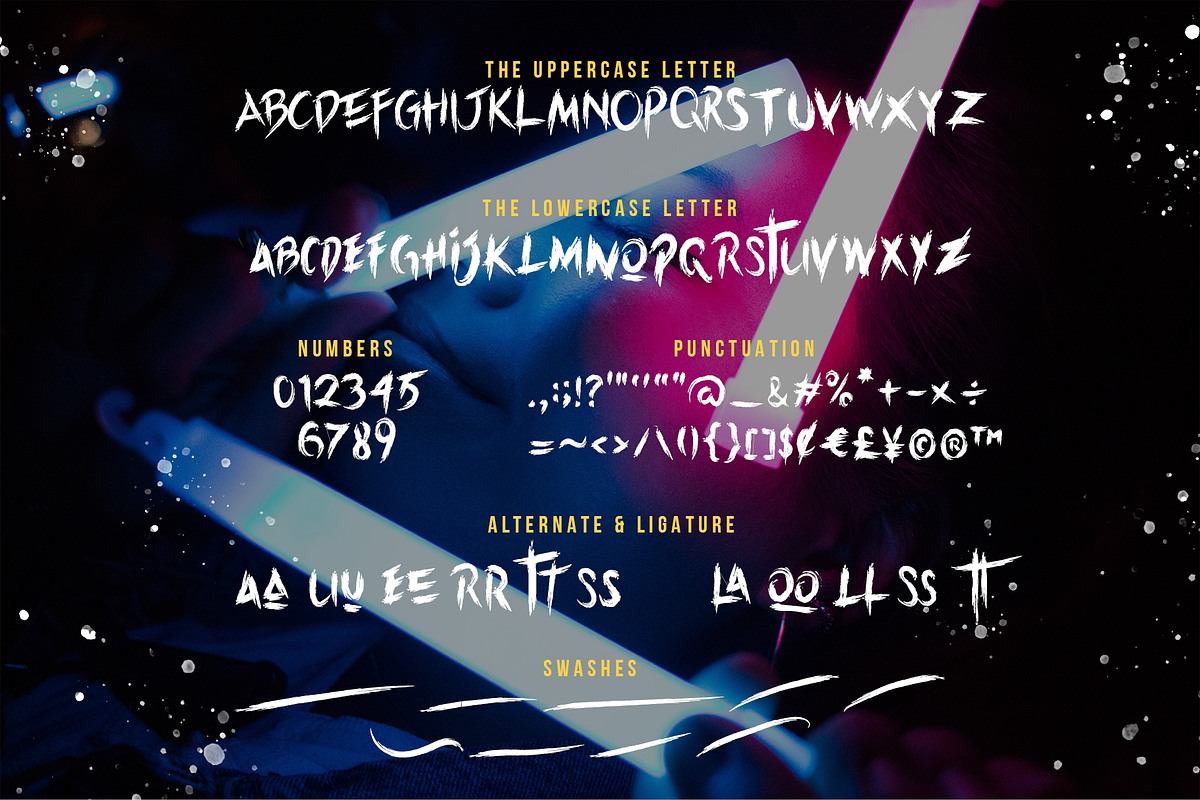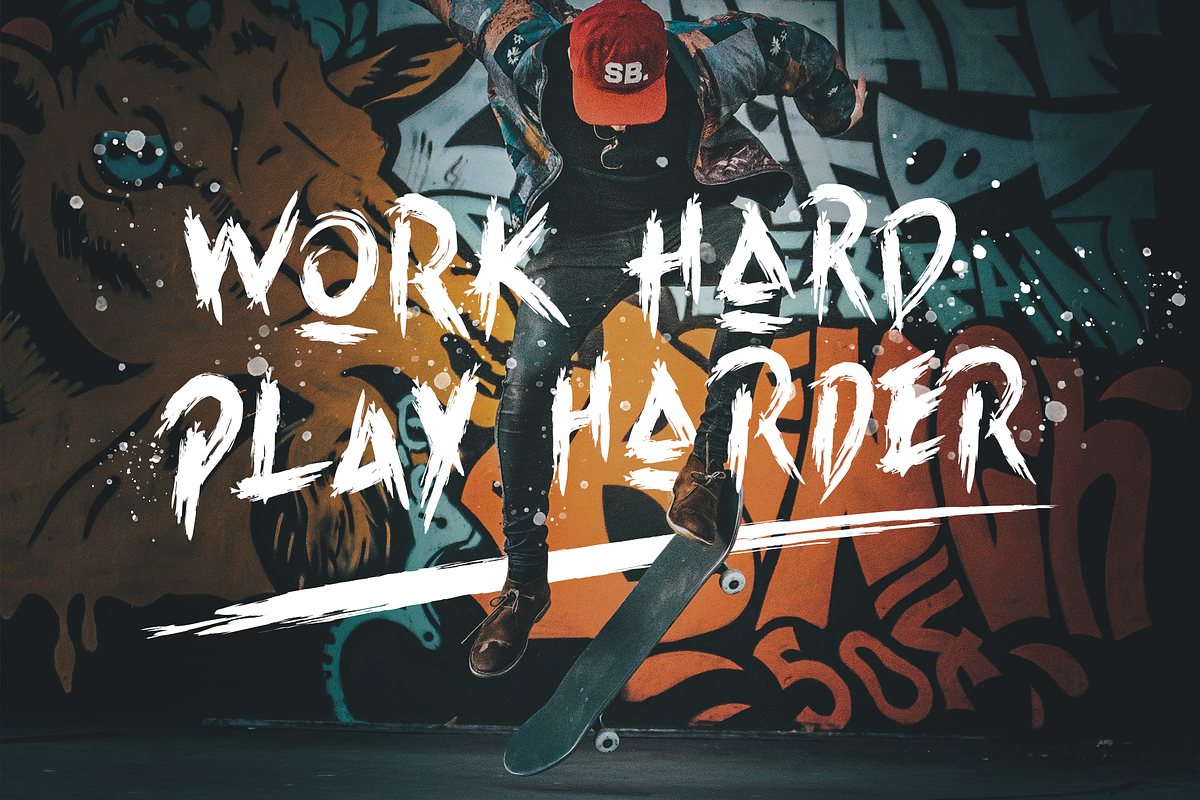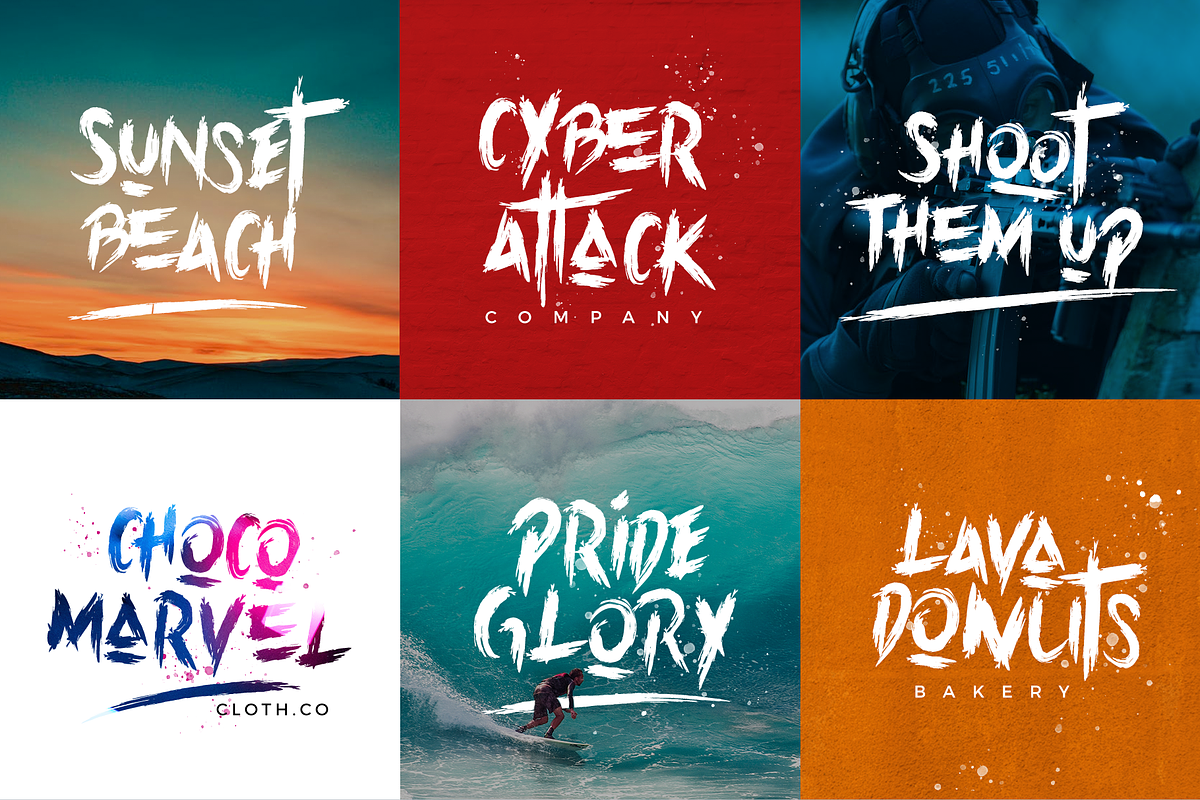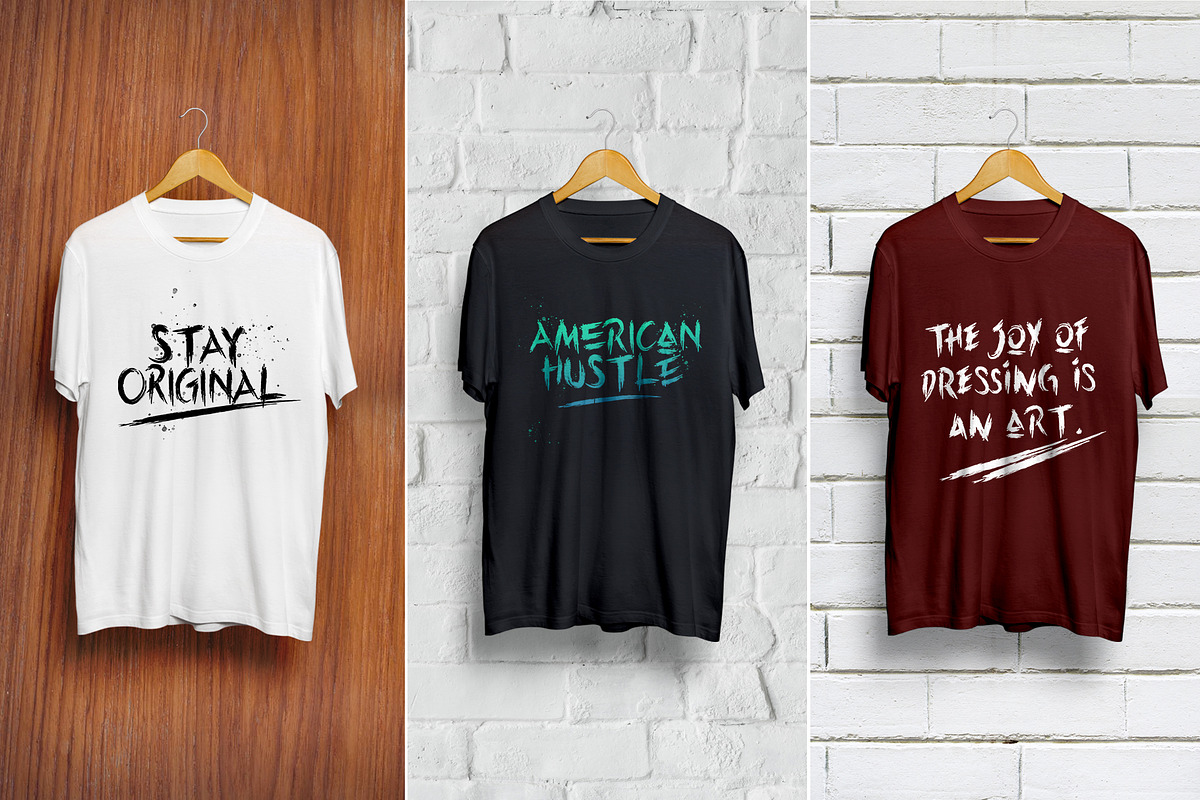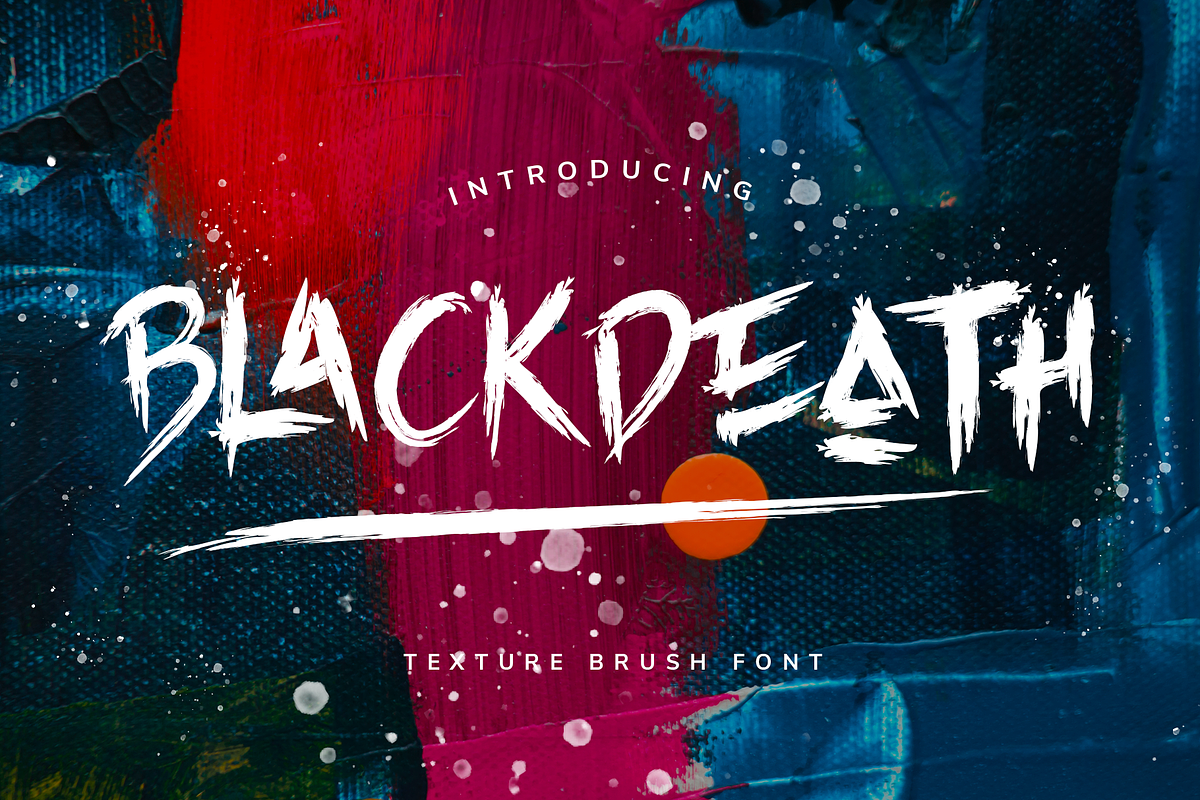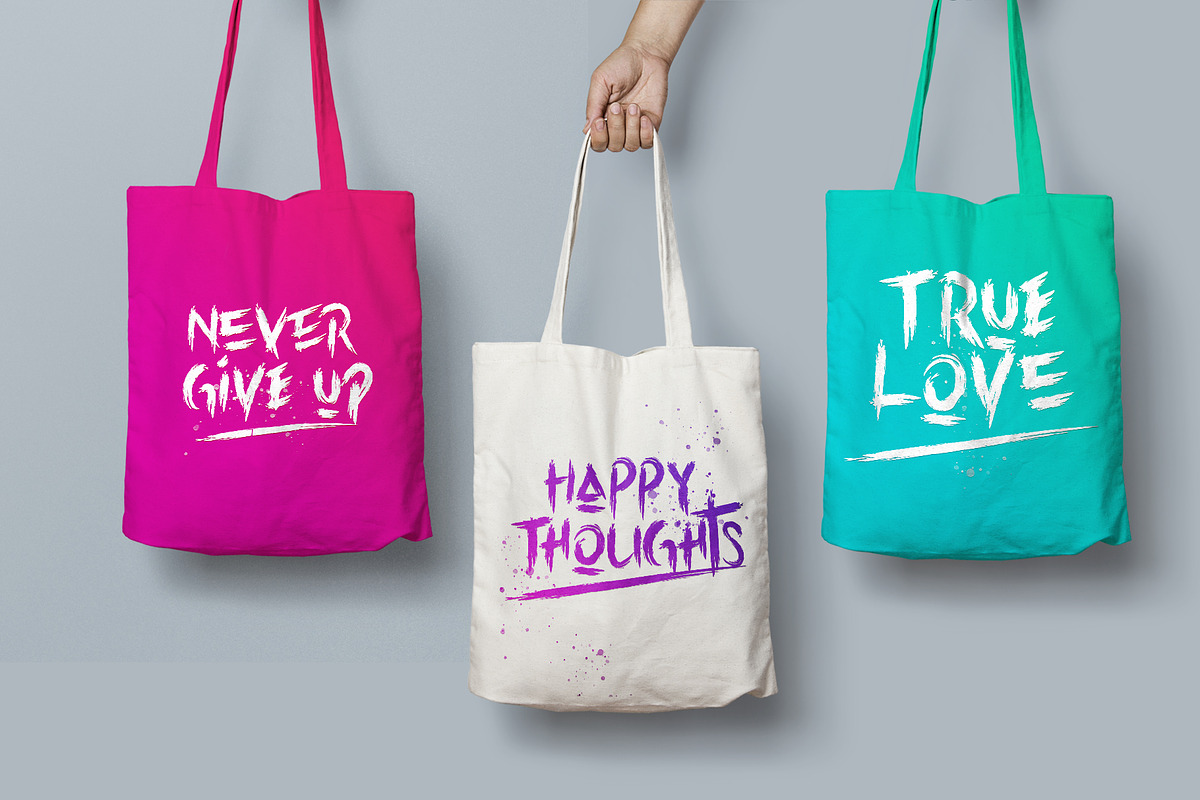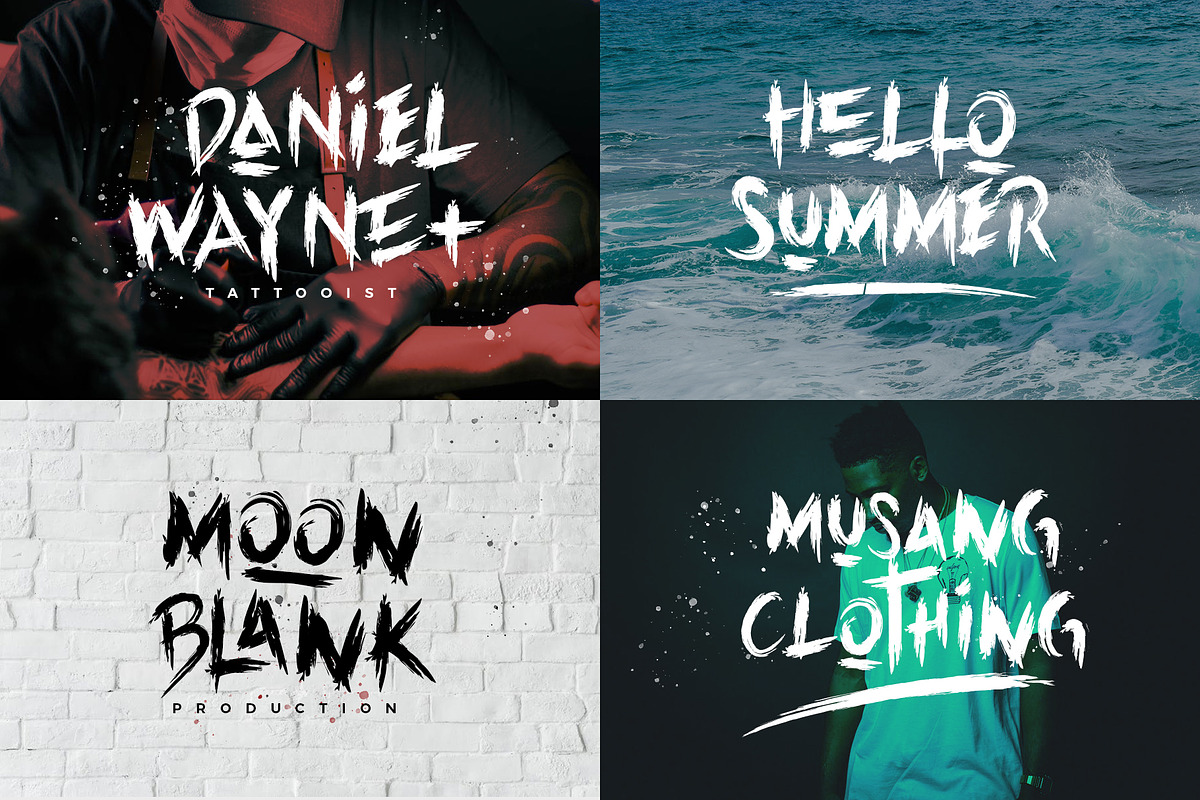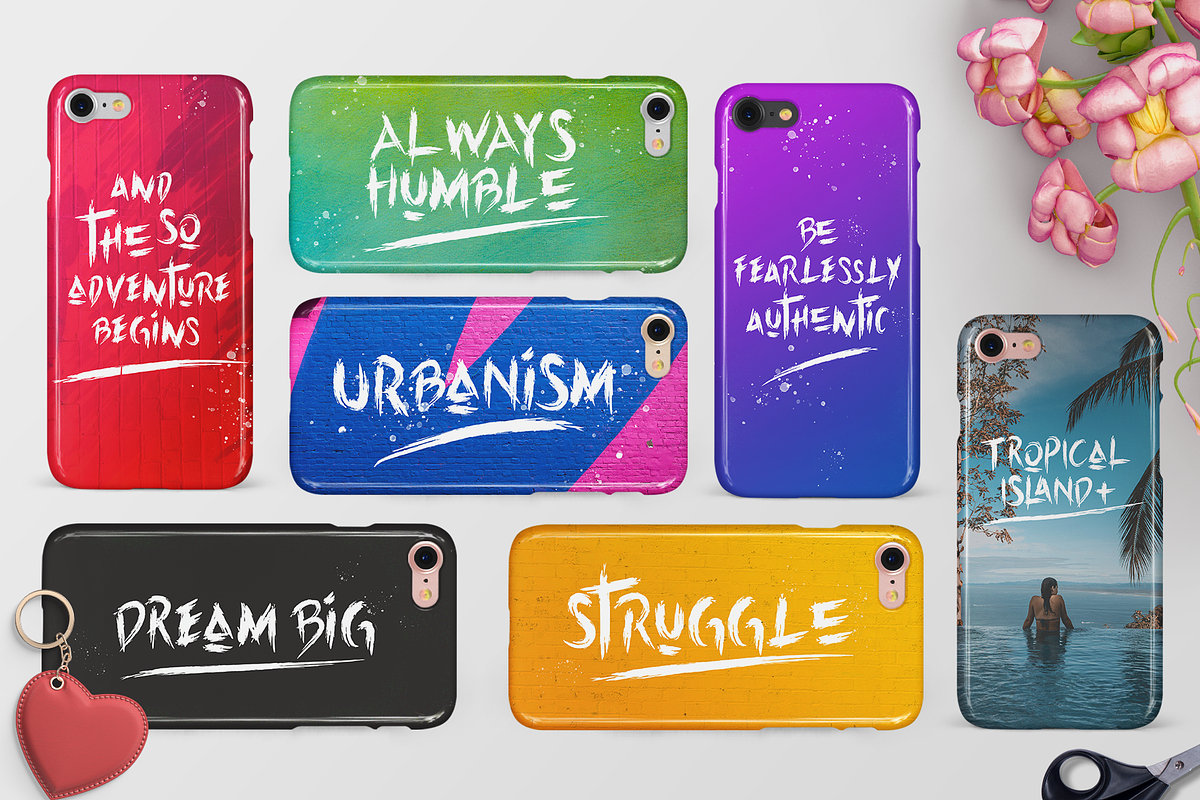
BLACKDEATH Brush Font
Meet BLACKDEATH, This is street-wise brush font bursting with energy. With extra attention to quick strokes and sharp details and give off a real personal touch to your projects
It is perfect used for various purposes such as editorial design, branding, art quote, book / cover title, poster, apparel design, product packaging, label, special events or anything that need hand-drawn taste.
BLACKDEATH - A hand-made brush, all-capitals brush font which has a complete set of alternate A-Z characters. Simply switch between upper & lower case to access the alternates. (Tips: Try mixing up both upper and lowercase characters in a word to achieve the best text layout).
BLACKDEATH Swashes A bonus set of 26 swashes. Simply select this font and type any A-Z character to create one of the bonus elements.
Ton of glyphs (include Uppercase, Lowercase, Numerals & Punctuations)